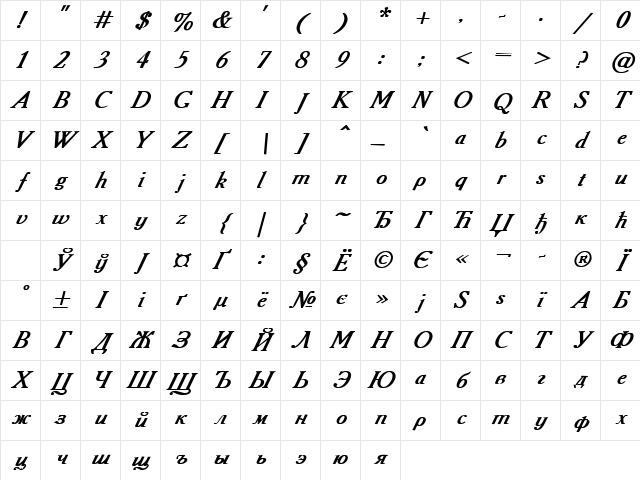
Academy Bold Italic Free Font
Academy Bold Italic
Design Context for Academy
Academy is a composed and adaptable typeface that performs quietly and consistently across a wide range of design contexts. The slanted form adds forward momentum and visual energy. Its bold stroke weight gives it real presence on the page.
Pro Tip: Use Academy for emphasis, pull quotes, and subheadings where its slanted energy can add rhythm to the layout.